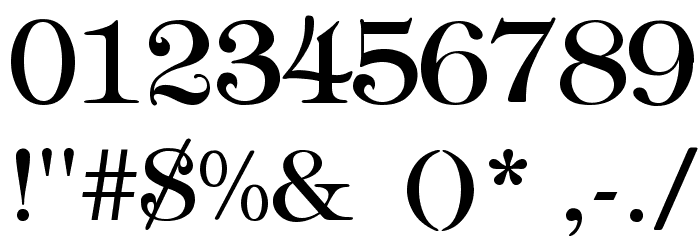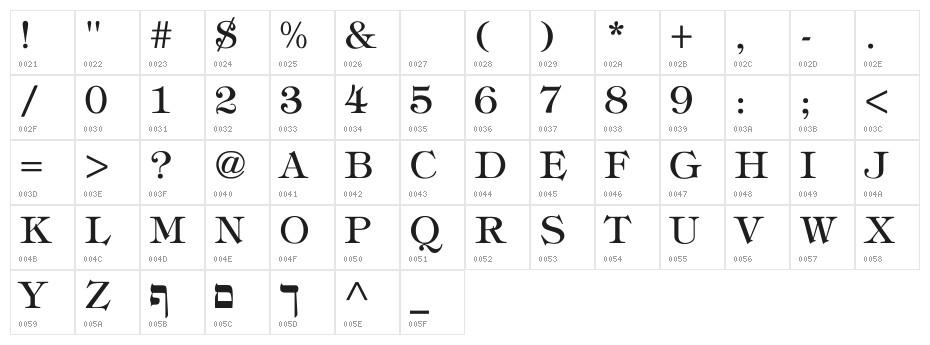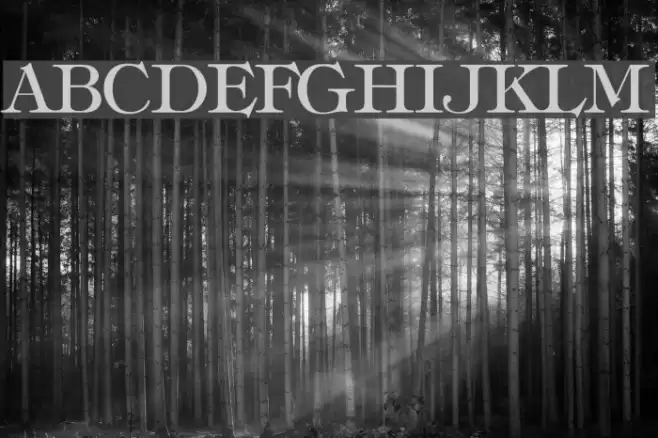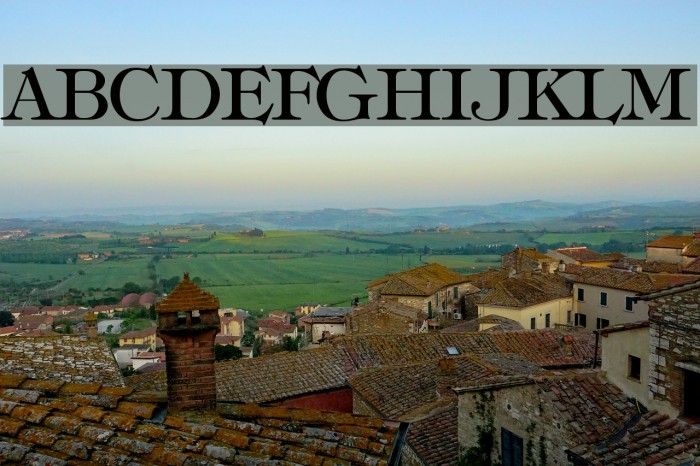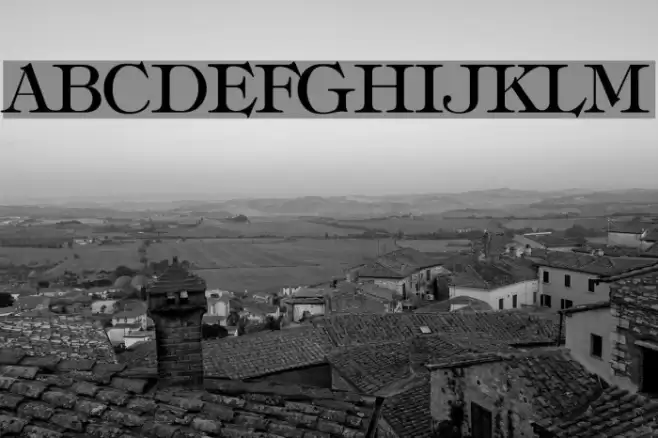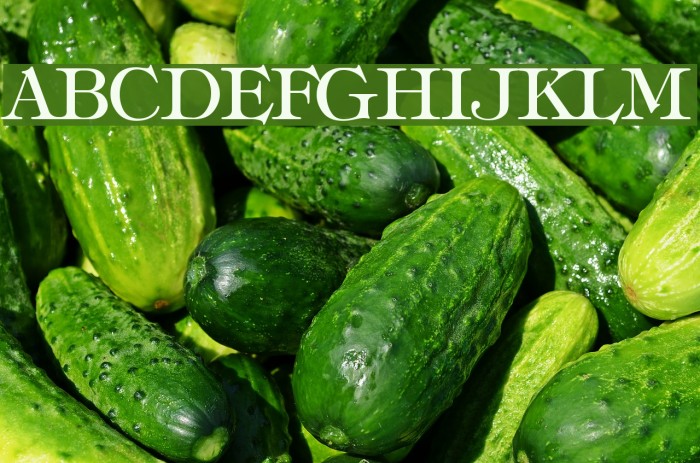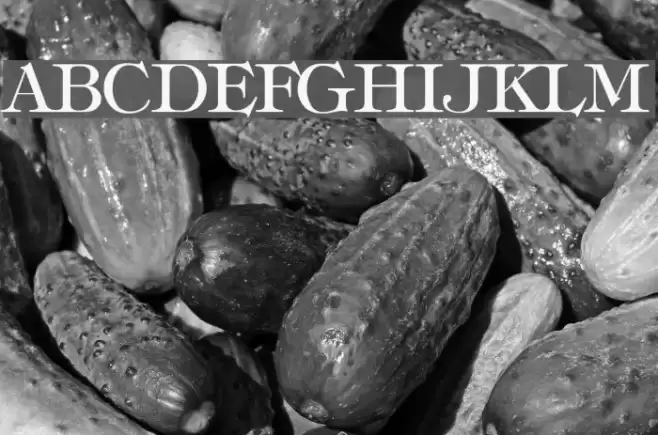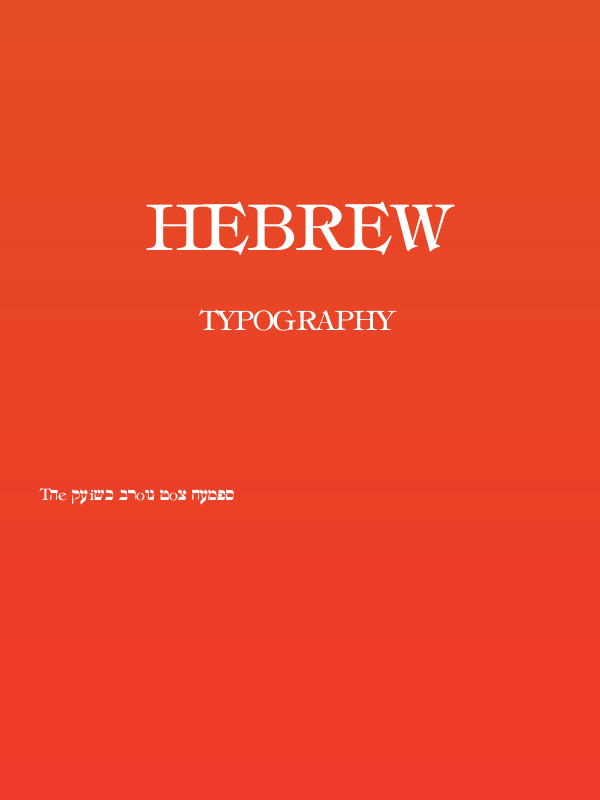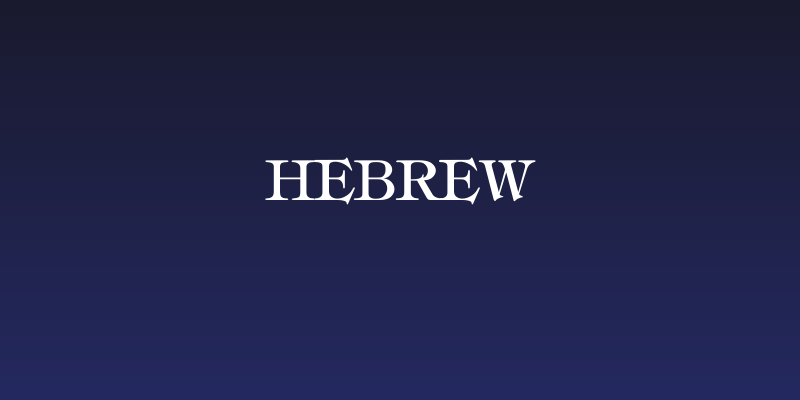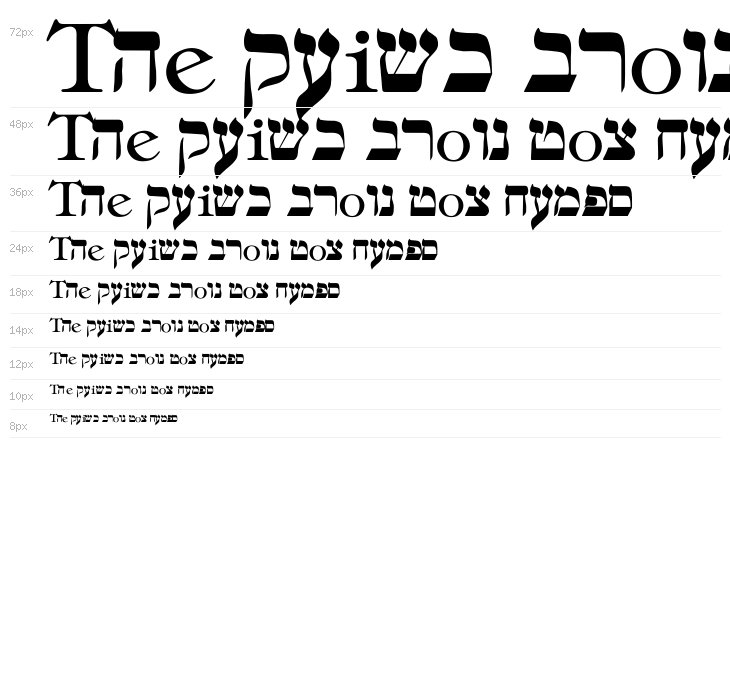
This font presents a unique blend of traditional and modern elements, featuring a serif style with distinct, sharp edges and a slightly condensed form. The uppercase letters are bold and commanding, with a classic serif structure that adds a touch of elegance. The lowercase letters maintain a consistent style, offering a harmonious balance between the two cases. The numerals are well-defined and integrate seamlessly with the overall design. Special characters are included, providing versatility for various applications. The font's design is both decorative and functional, making it suitable for a wide range of creative projects.
| Use Case | Headlines, Logos, Editorial Design |
| Proposed Projects | Ideal for branding, editorial design, book covers, and any project requiring a sophisticated and classic touch. |